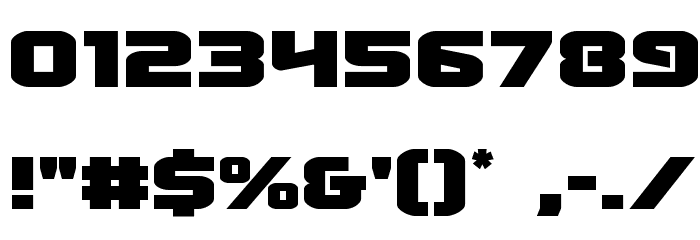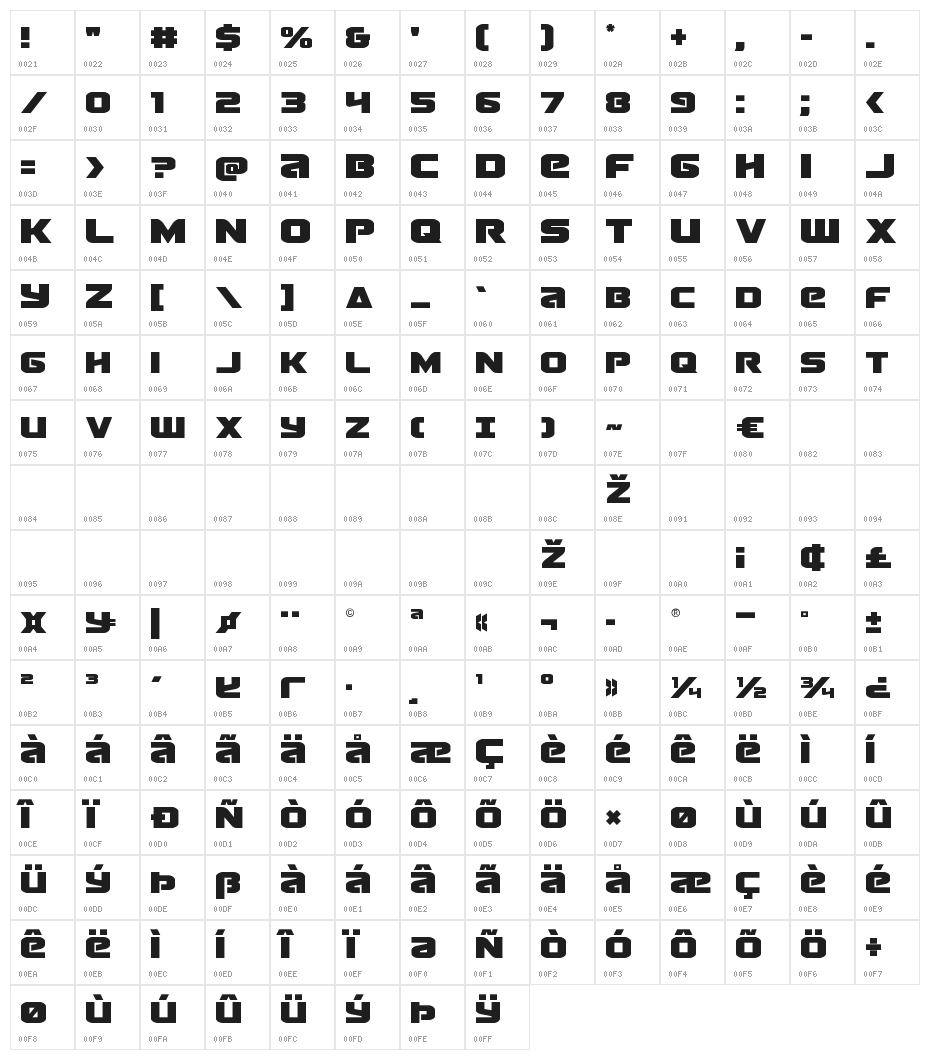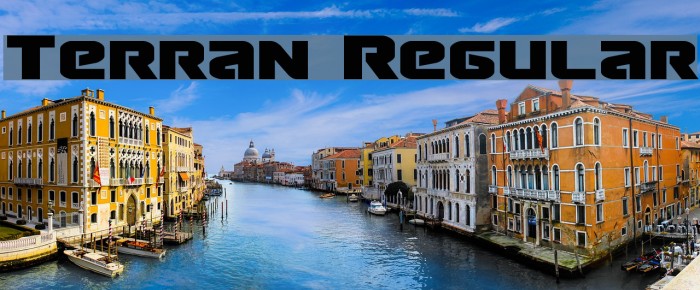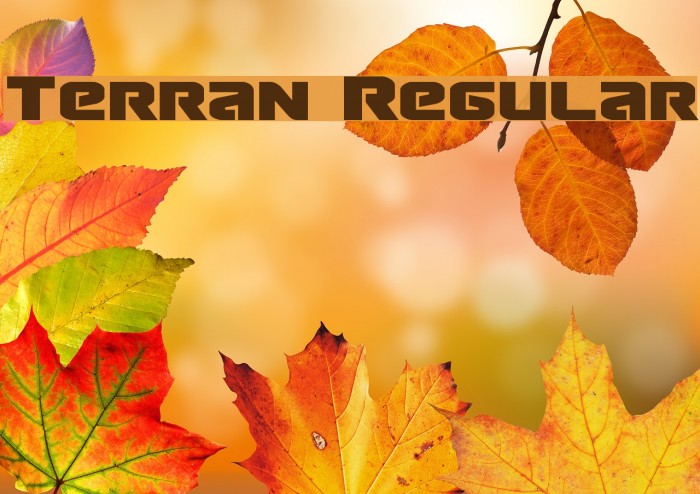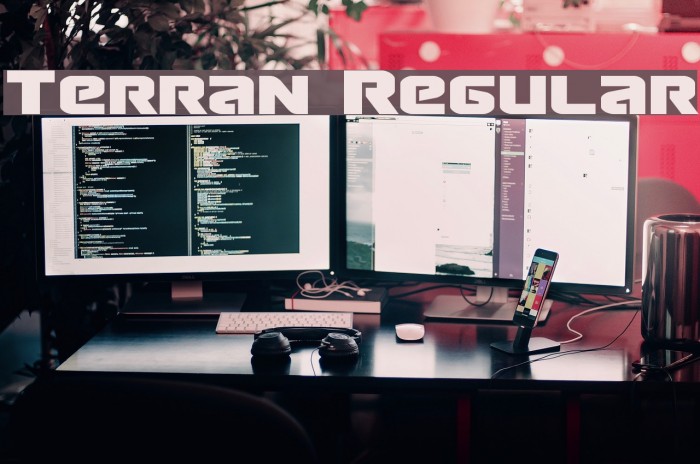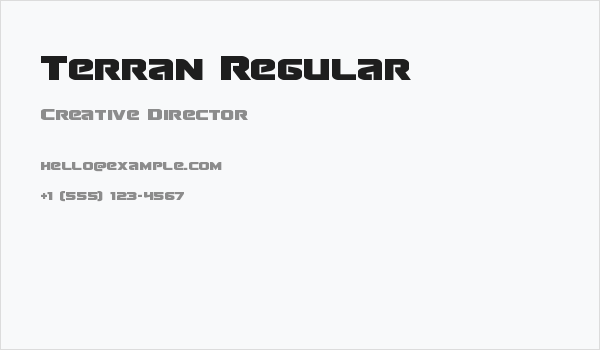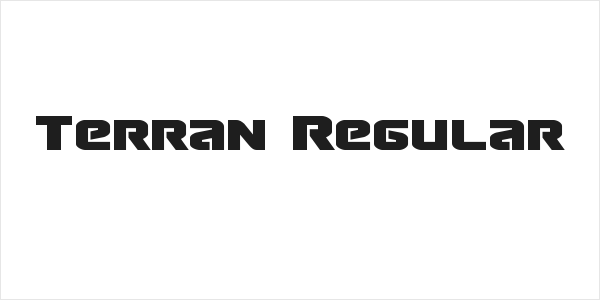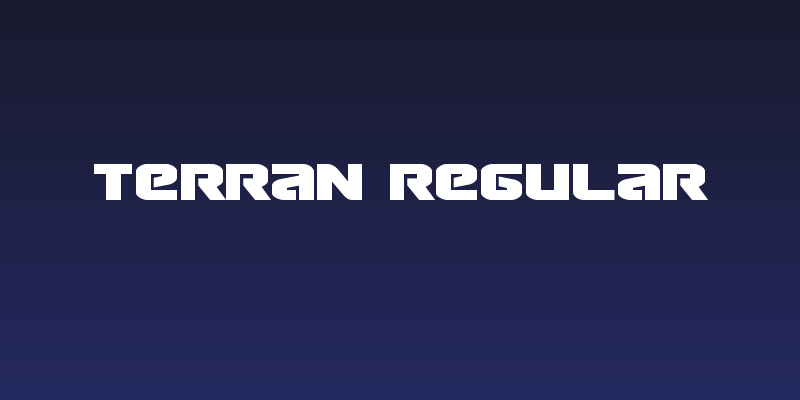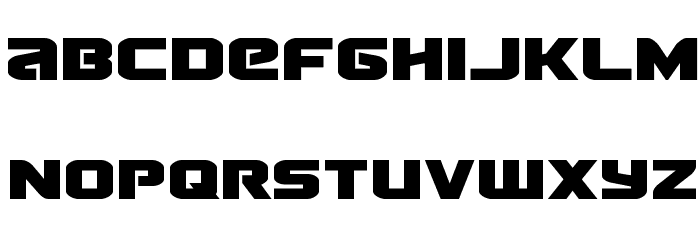
Terran Regular Font
Terran Regular Description
This font features a bold and geometric design, characterized by its strong, angular lines and futuristic aesthetic. The uppercase letters are particularly striking, with a uniform height and width that creates a cohesive and balanced look. The lowercase letters maintain the same boldness, offering a consistent visual weight across the alphabet. Numbers and special characters are designed with the same attention to detail, ensuring readability and style. The overall appearance is modern and dynamic, making it suitable for projects that require a bold statement.